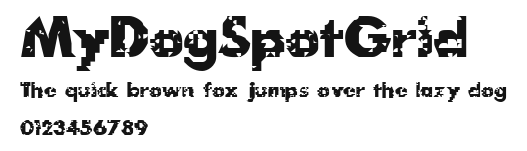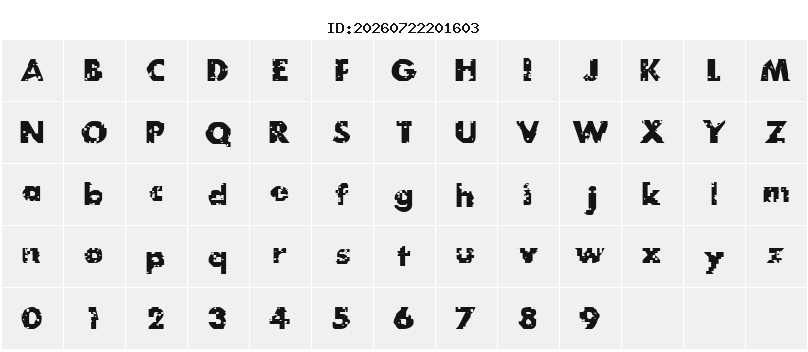
MyDogSpotGrid Preview
• Font Name: MyDogSpotGrid
• Font ID: MyDogSpotGrid Bold
• Full Font Name: MyDogSpotGrid Bold
• Version: Evil
• PostScript Name: MyDogSpotGrid-Bold
• Copyright: (C) LAWN DART FONTS 1997
About MyDogSpotGrid.ttf
MyDogSpotGrid.ttf is a modern, elegant sans-serif font designed for ultimate readability and visual harmony. Perfect for branding, headlines, web design, and print materials.